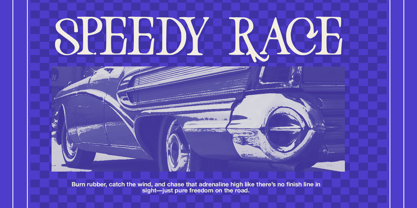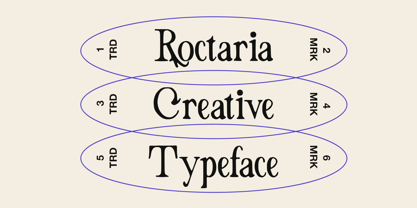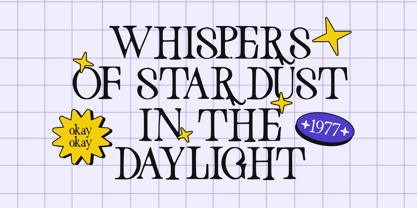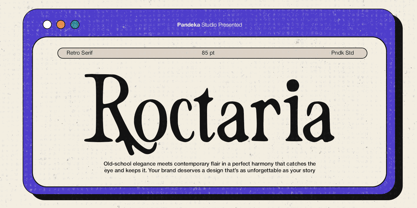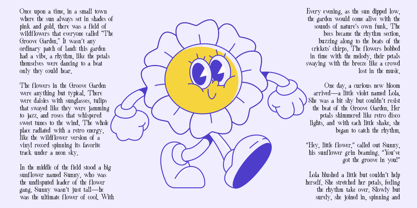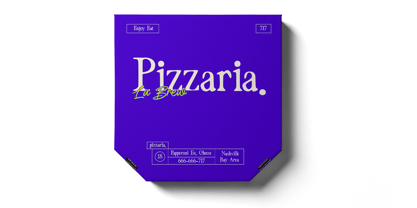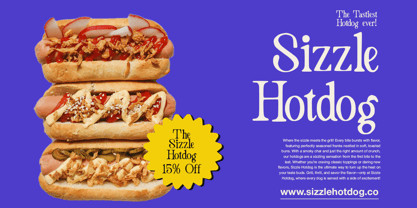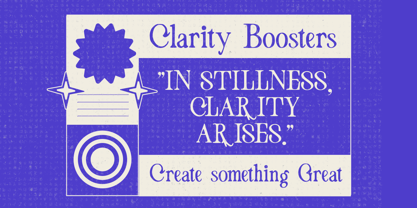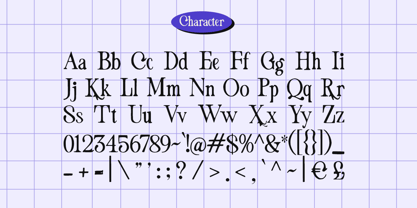
Roctaria
by Pandeka Studio
The Roctaria Font Family was designed by Sagara Nararya and published by Pandeka Studio. Roctaria contains 1 styles. More about this family
Roctaria – Elegant Retro Serif Typeface
Roctaria is a vintage-inspired serif with a hand-drawn touch, blending classic typography with a timeless design. Its bold lettering and sophisticated style add retro elegance to any project. Perfect for vintage branding, packaging, classic posters, signage, apparel, stickers, and editorial layouts, Roctaria brings a unique, nostalgic aesthetic to your designs.
Designers: Sagara Nararya
Foundry: Pandeka Studio